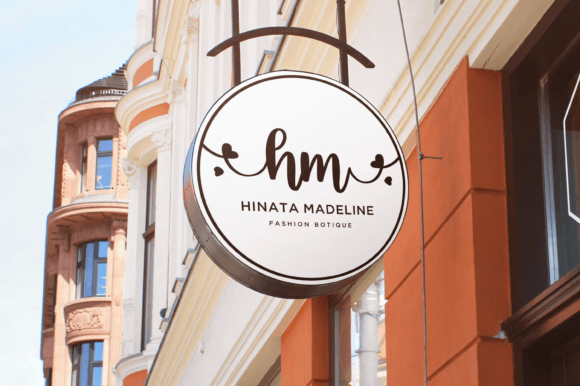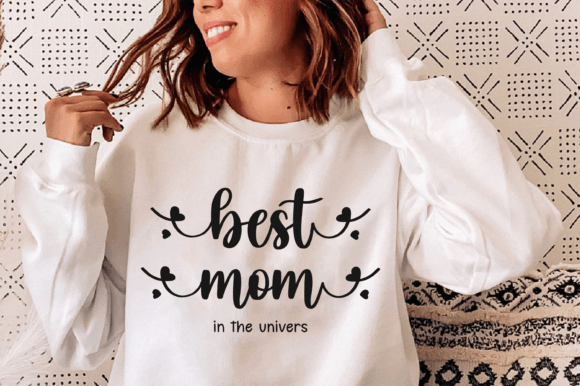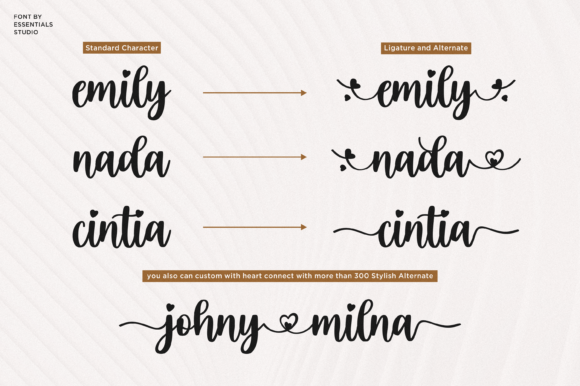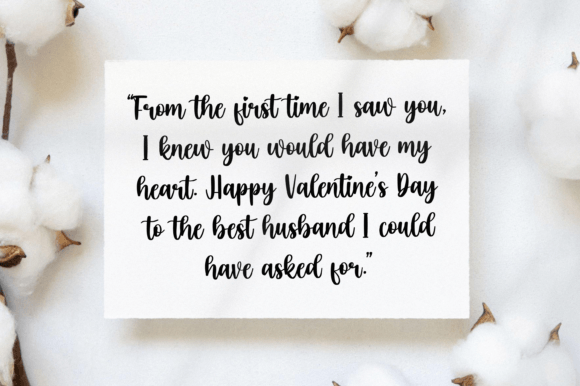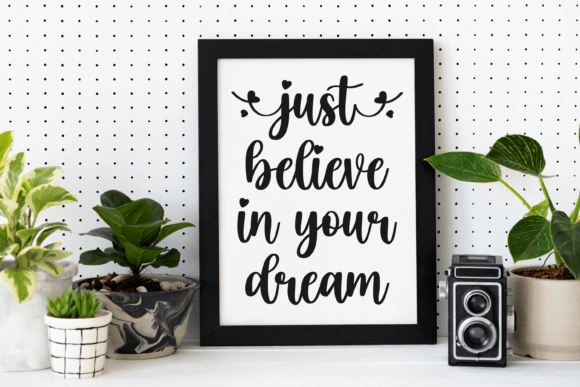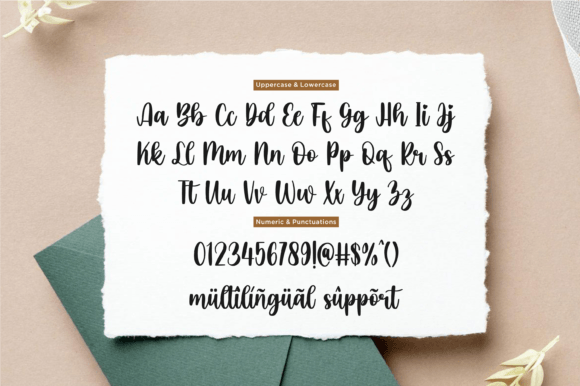
Eilysa Luise Font: Elevate Your Design with Modern Elegance
In the world of typography, a font can make all the difference in the success of a design project. For designers and crafters looking for a modern and lovely script font, Eilysa Luise is an excellent choice. This stunning font is perfect for a variety of applications, including product packaging, branding projects, magazines, social media, weddings, and more.
The Beauty of Eilysa Luise
Eilysa Luise is a script font that exudes elegance and sophistication. Its modern design makes it an ideal choice for designers looking to add a touch of luxury to their projects. The font’s flowing lines and curves create a beautiful, hand-written feel that is sure to capture the attention of your audience.
One of the best things about Eilysa Luise is its versatility. This font can be used in a wide range of applications, from product packaging to branding projects, and from magazines to social media. Whether you’re looking to create a cohesive brand identity or add a personal touch to your designs, Eilysa Luise is the perfect choice.
Perfect for Weddings and Special Occasions
Eilysa Luise is also an excellent choice for weddings and special occasions. Its elegant and sophisticated design makes it perfect for use in wedding invitations, save-the-date cards, and other stationery. The font’s romantic feel is sure to add a touch of whimsy and charm to any wedding or special occasion.
Why Choose Eilysa Luise?
So, why choose Eilysa Luise over other fonts? Here are just a few reasons:
- Modern and Lovely Design: Eilysa Luise has a modern and lovely design that is sure to elevate your designs.
- Versatility: This font can be used in a wide range of applications, from product packaging to branding projects, and from magazines to social media.
- Elegant and Sophisticated: Eilysa Luise has an elegant and sophisticated design that is perfect for weddings and special occasions.
- Easy to Read: The font is easy to read, making it perfect for use in body text or headlines.
Tips for Using Eilysa Luise
Here are a few tips for using Eilysa Luise:
- Use it as a Headline Font: Eilysa Luise is perfect for use as a headline font. Its elegant and sophisticated design makes it sure to grab the attention of your audience.
- Pair it with a Sans-Serif Font: For body text, pair Eilysa Luise with a sans-serif font, such as Arial or Helvetica. This will create a nice contrast between the elegant script font and the clean sans-serif font.
- Experiment with Different Colors: Eilysa Luise looks great in a variety of colors. Experiment with different colors to find the one that works best for your design.
Eilysa Luise is a modern and lovely script font that is perfect for designers and crafters looking to add a touch of elegance and sophistication to their designs. Its versatility, elegant design, and ease of use make it an excellent choice for a wide range of applications. Whether you’re looking to create a cohesive brand identity or add a personal touch to your designs, Eilysa Luise is the perfect choice.